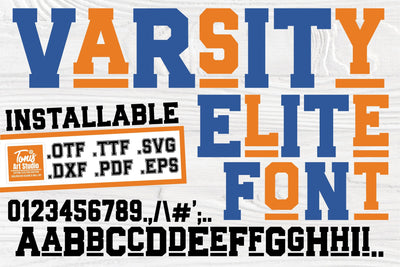
Varsity Font SVG | Varsity Elite Font OTF TTF | Bold Sports Letters for Custom Designs | Cut Files for Cricut & Silhouette
Add a touch of collegiate style to your projects with the VARSITY ELITE font! Featuring bold capital letters and sharp outline lowercase letters, this font is perfect for designing eye-catching sportswear, team logos, school merchandise, and more. With multiple formats like OTF, TTF, SVG, DXF, PDF, and EPS, this font ensures versatility and compatibility with your favorite design software and cutting machines, including Cricut and Silhouette.
Bold uppercase and outline lowercase letters for versatile design combinations.
Ideal For:
DIY sports jersey designs
Custom team apparel and posters
School spirit wear and event branding
Personalized gifts and merchandise